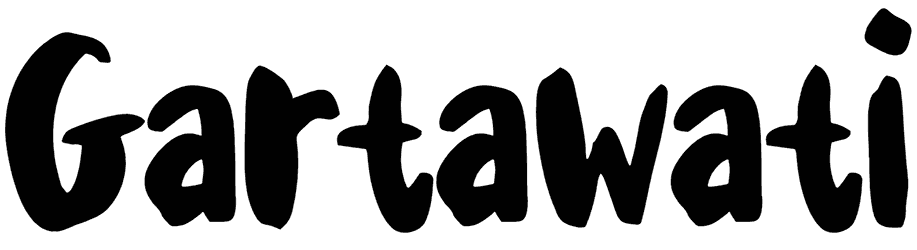
Gartawati Font
If you are tired of boring previews font and want to make changes, don’t miss out on this Gartawati. This brush font would bring something new to the project that your content needed. This collection supports you with the complete set of alphabets, numbers, and punctuation to push a fresh and warm design.